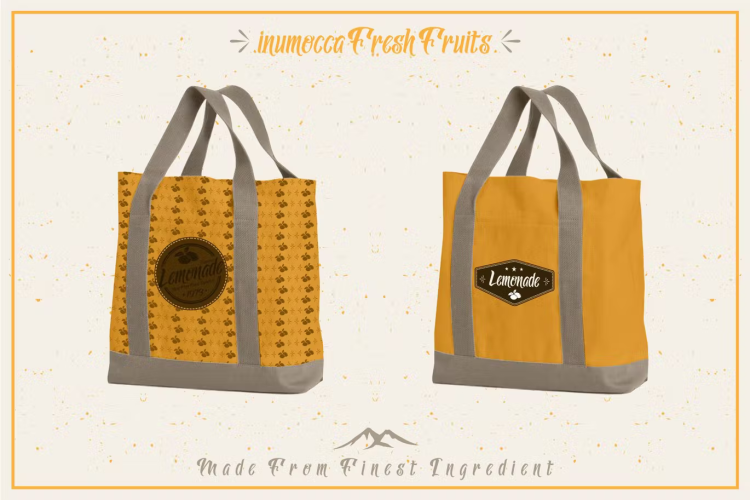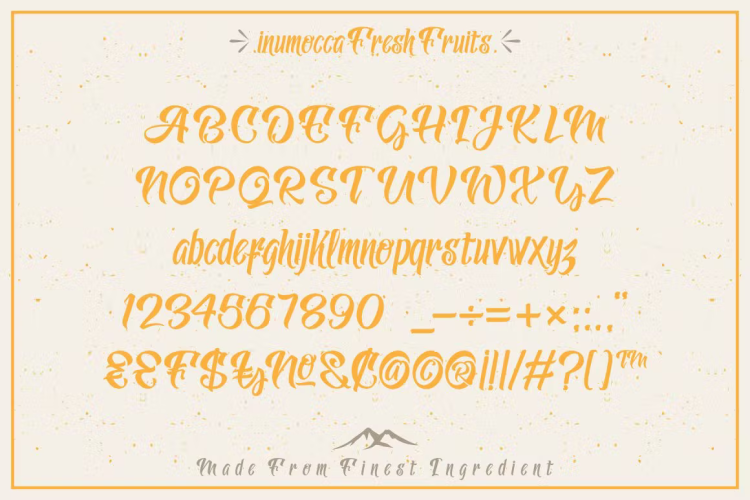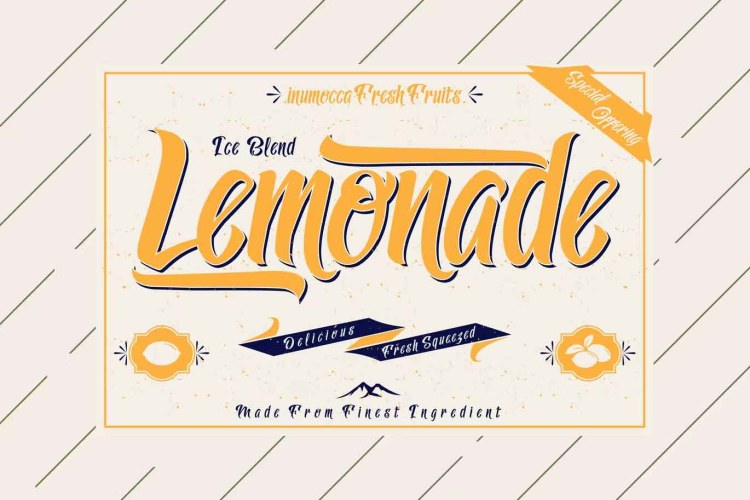
Lemonade Font
lemonade font inspired from vintage style of packaging
Where Lemonade Font works best
A short phrase in Lemonade Font carries warmth that a typeset sans cannot fake; keep the rest of the card plain.
Chalkboard-style headings in Lemonade Font make a menu feel hand-made. Keep the dish descriptions in a simple face so prices stay readable.
One line of Lemonade Font over a photo is enough; the script carries the tone and the caption does the work.
What kind of work does Lemonade Font suit?
It sits in the Script And Handwritten group and reads as classic, packaging, script, script and handwritten. That makes it a candidate wherever those qualities help: headings, packaging, social graphics and brand work. Set it at the size you plan to use before deciding.